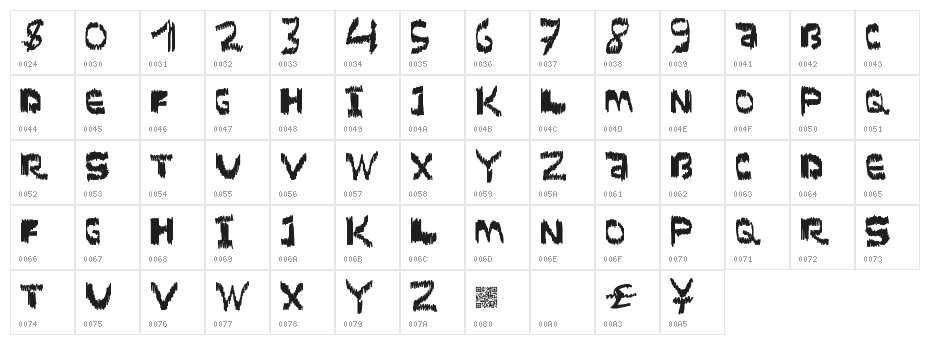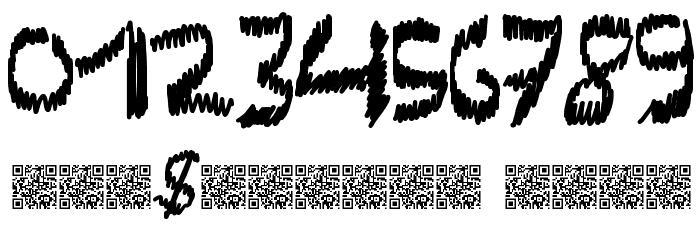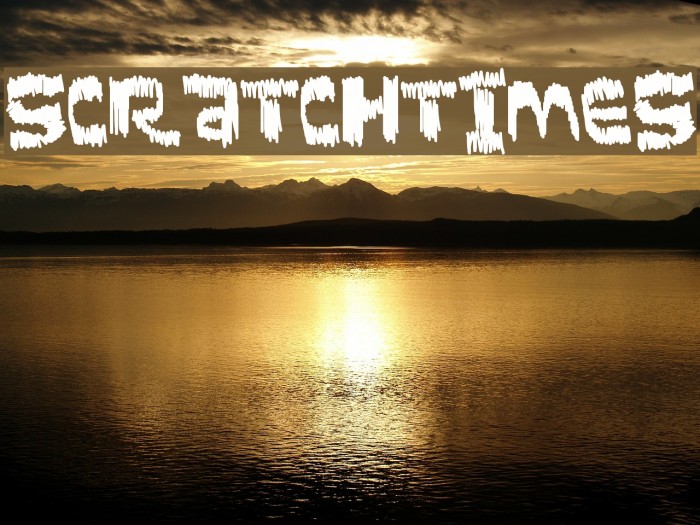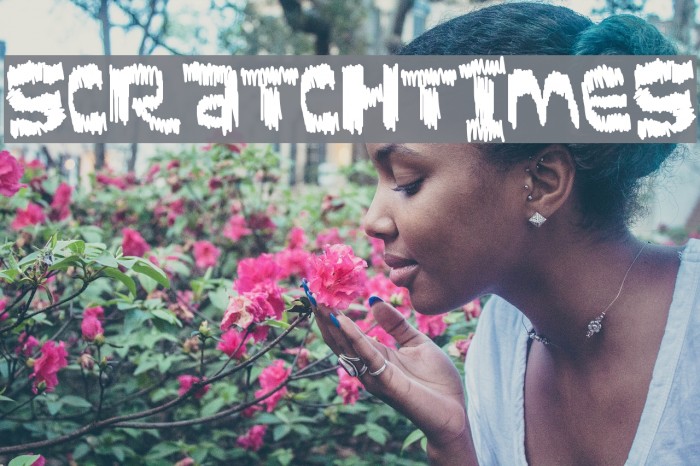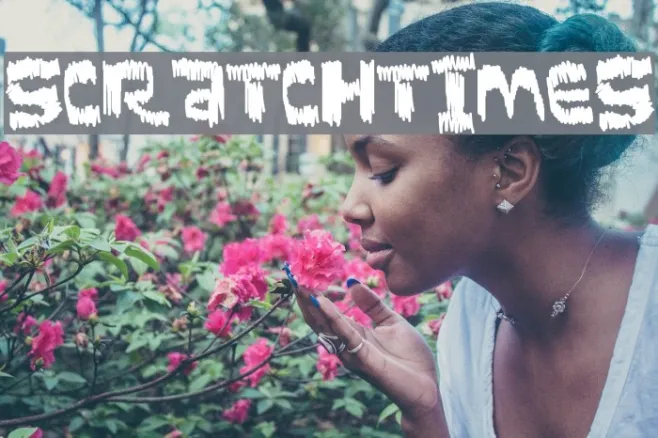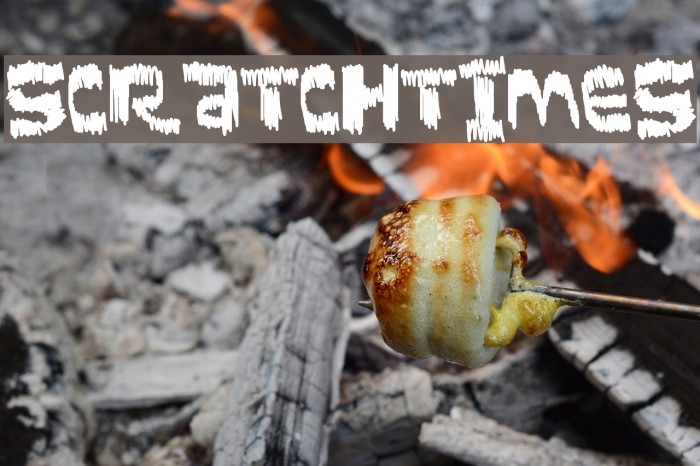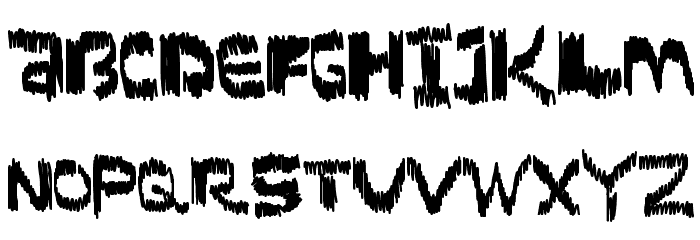
ScratchTimes Font
ScratchTimes Description
This font features a unique, jagged design that mimics the appearance of scratch marks or torn edges. The characters have an irregular, distressed look, giving them a dynamic and edgy feel. The strokes are bold and uneven, creating a sense of movement and energy. This style is particularly striking in larger sizes, where the intricate details of the 'scratched' effect are more pronounced. The font maintains legibility despite its unconventional appearance, making it suitable for attention-grabbing headlines or artistic projects. The overall aesthetic is bold and expressive, perfect for projects that require a dramatic and unconventional typeface.